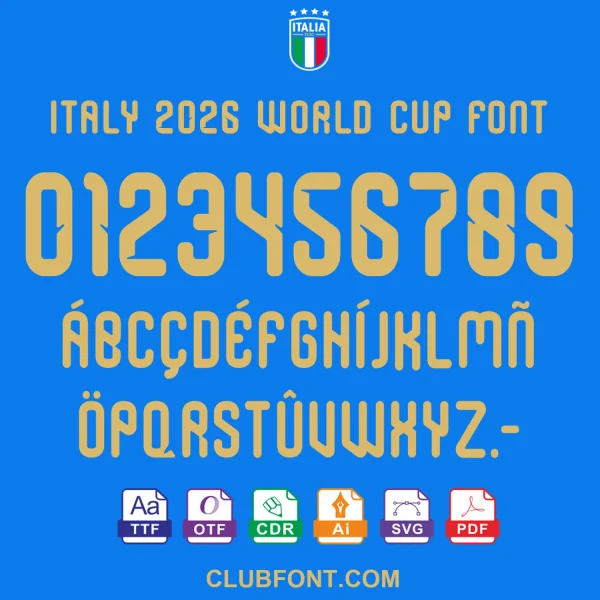
Bring the legacy of the Azzurri to life with our exclusive Italy 2026 World Cup Font Download. Designed for professional designers, apparel manufacturers, and passionate football fans, this typography kit embodies the elegance and strength of the Italy National Team kits. Perfect for the upcoming 2026 FIFA World Cup, these fonts ensure your designs stand out on and off the pitch.
Why Choose Our Italy 2026 World Cup Font Download?
This isn’t just a typeface; it’s a strategic tool for creativity. The clean, geometric lines are optimized for high-visibility applications, making it the premier choice for anyone searching for a reliable Italy 2026 World Cup Font Download.